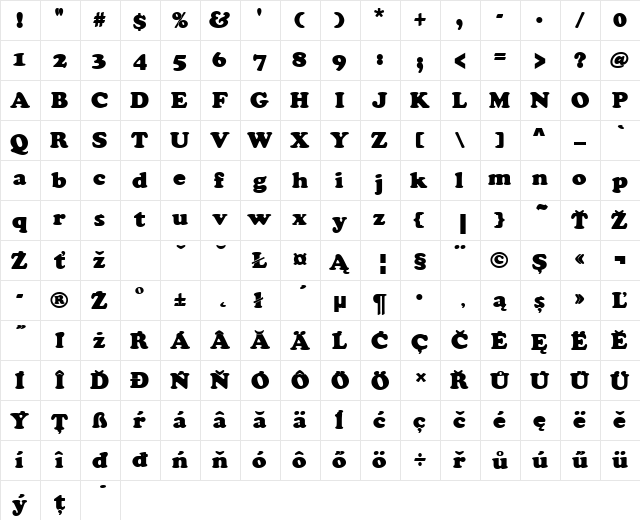
CooperBlaPEE Regular
Design Context for CooperBlaPEE Typeface
CooperBlaPEE takes a measured approach to typography — its balanced proportions and neutral character make it a reliable workhorse for both digital and print work.